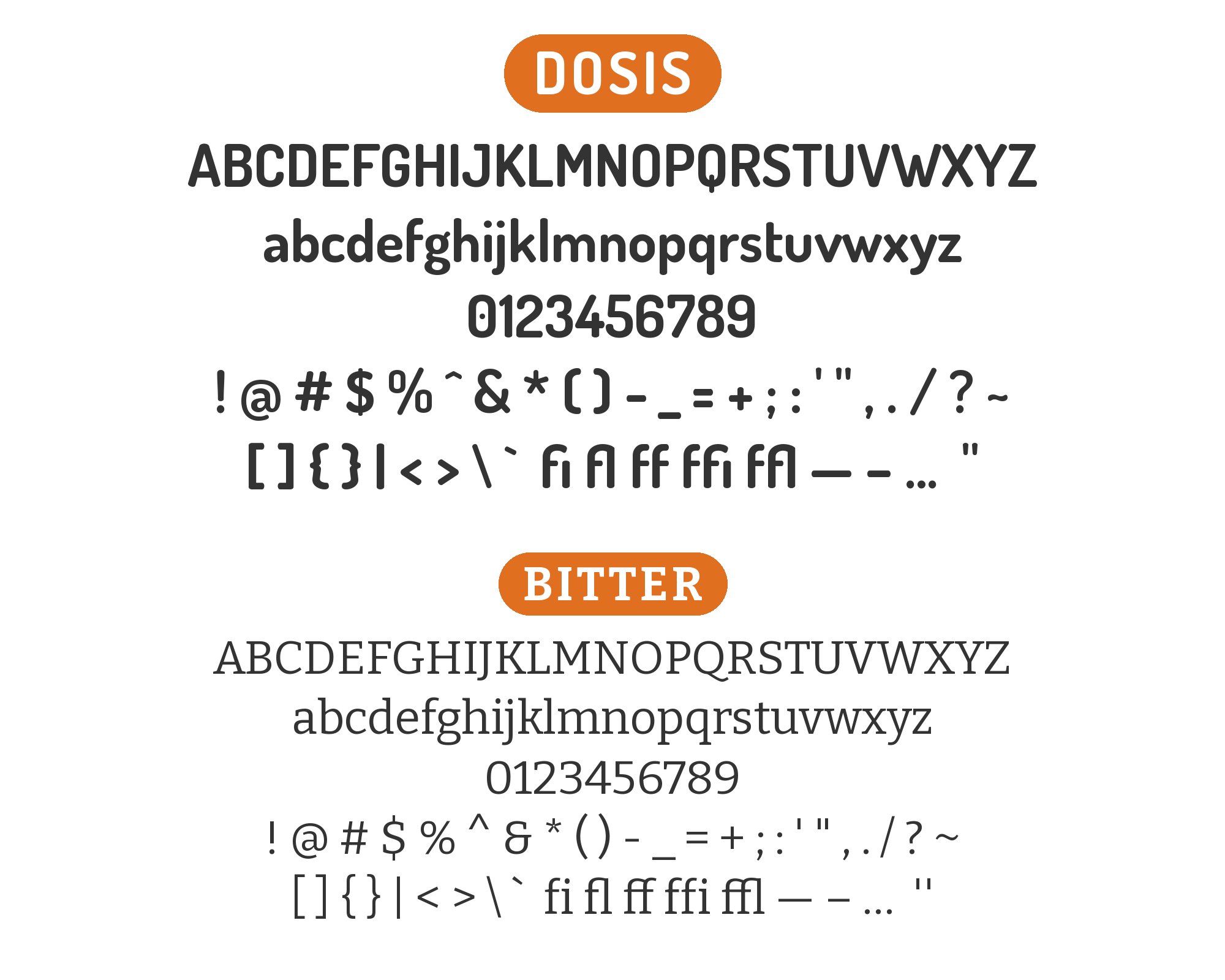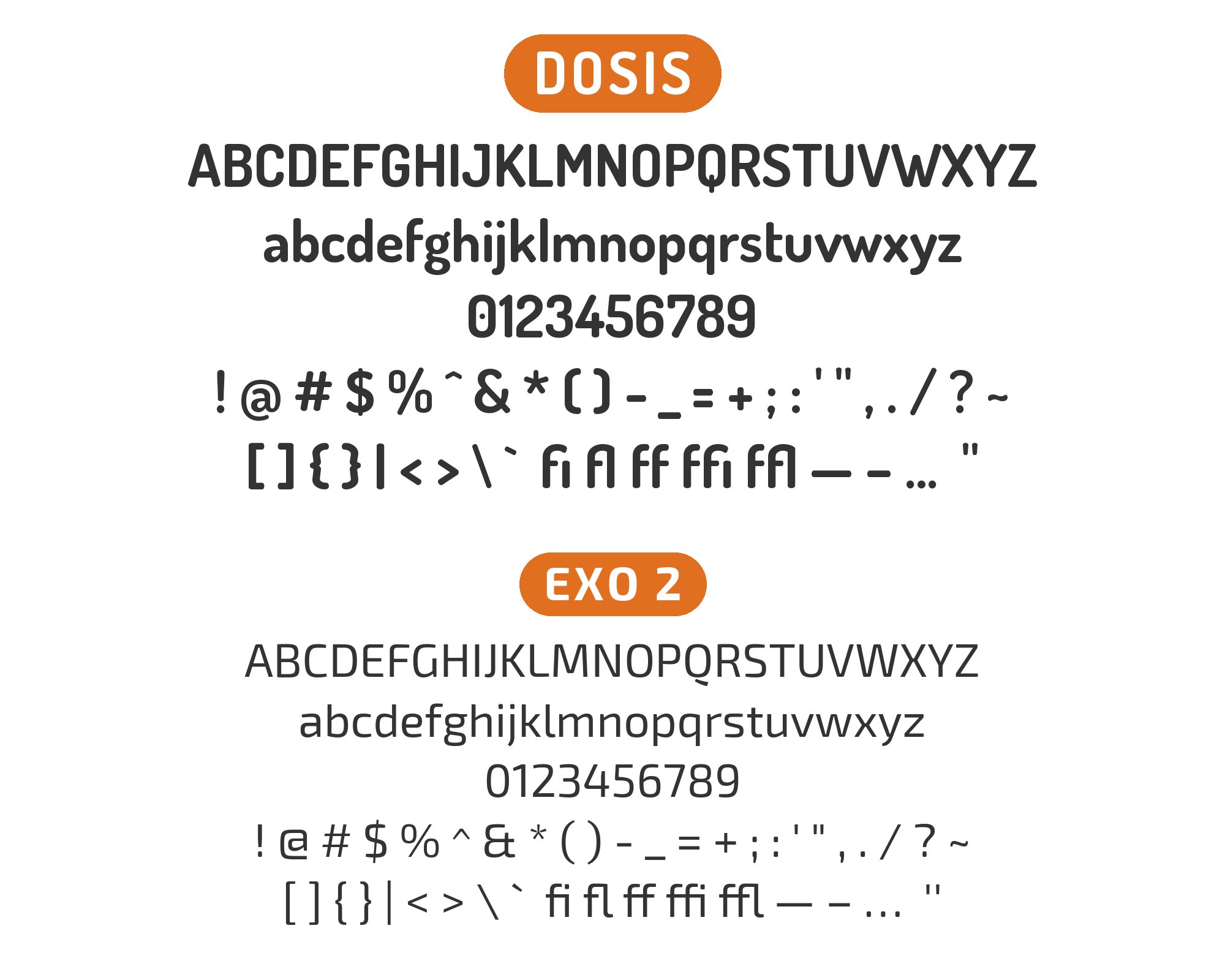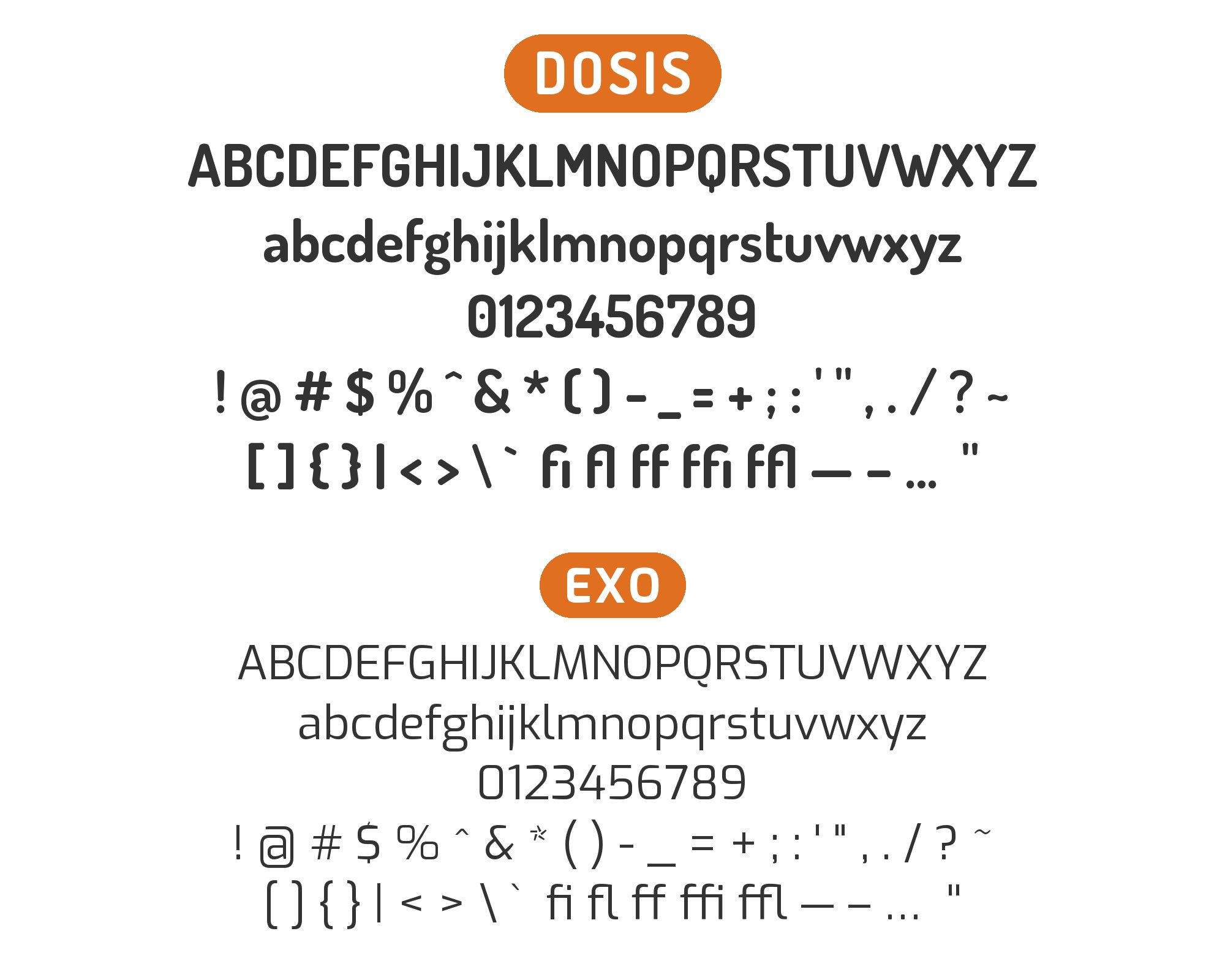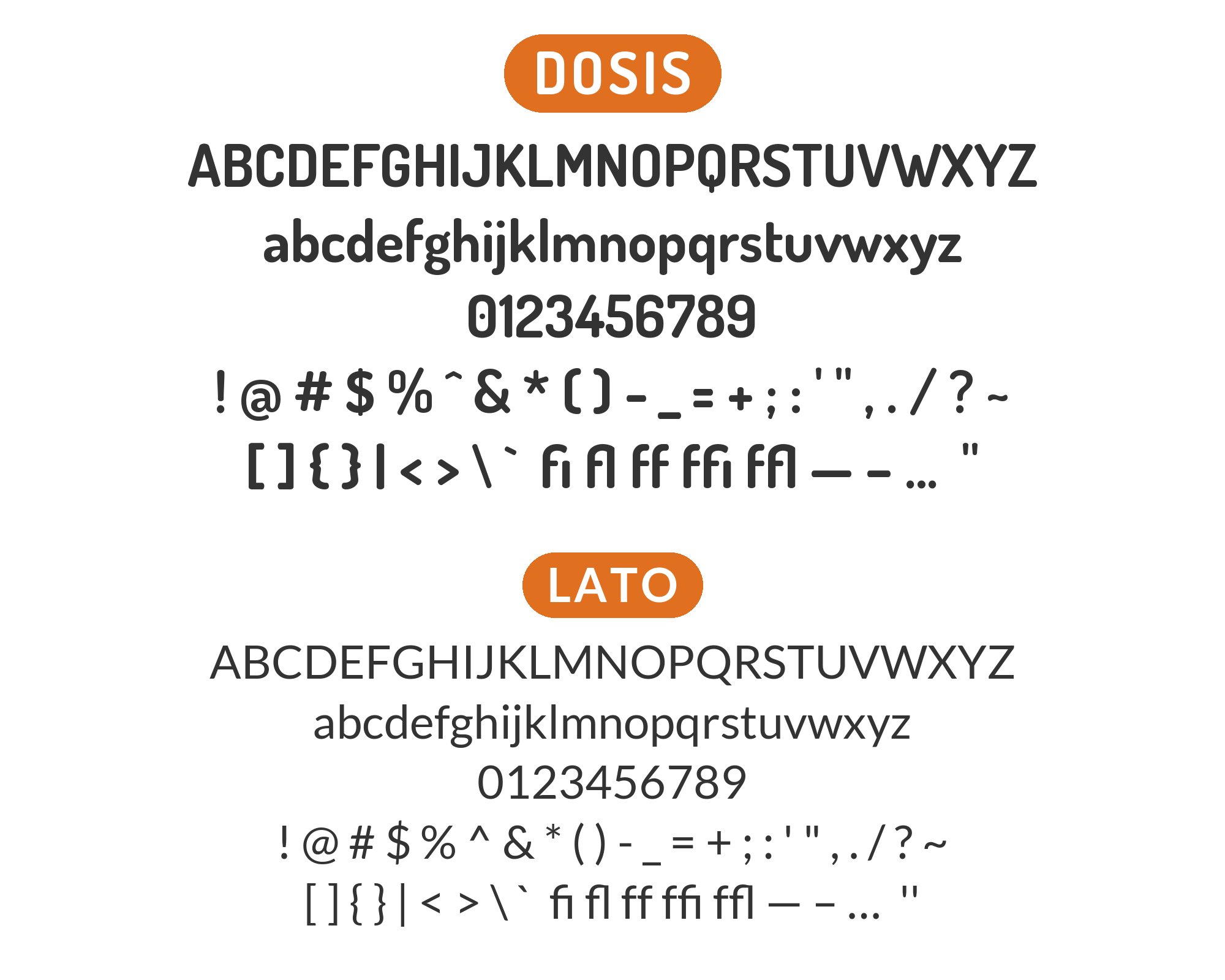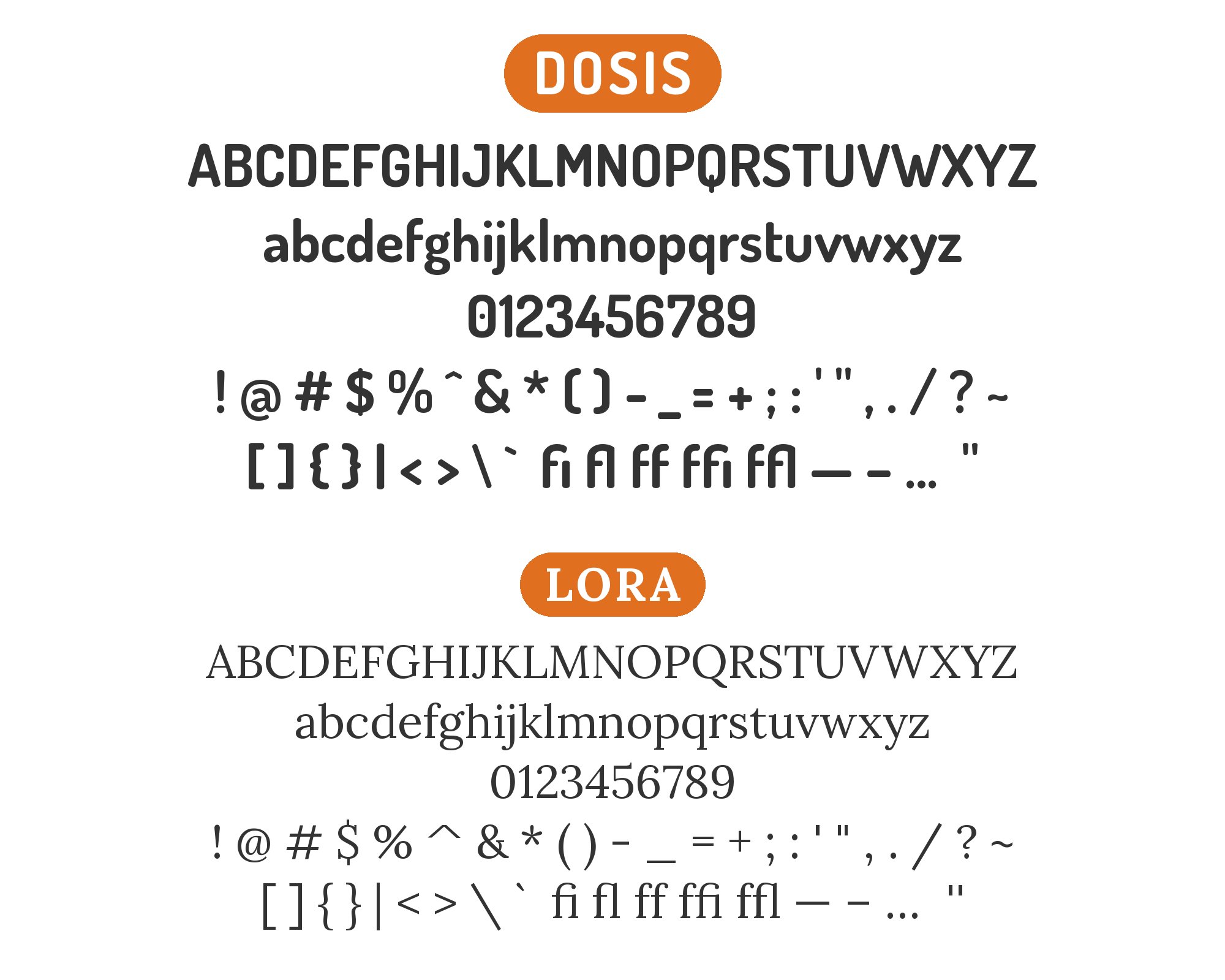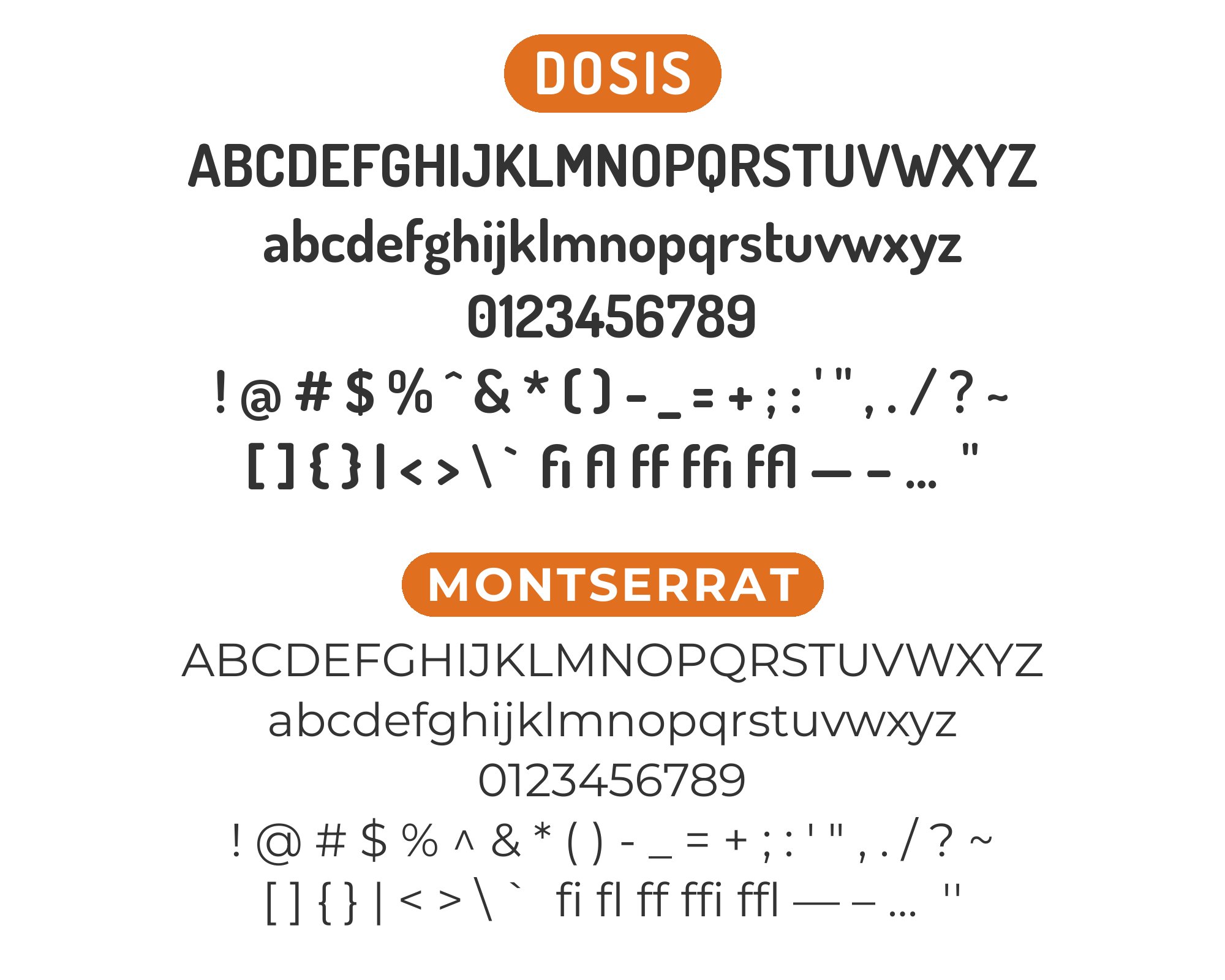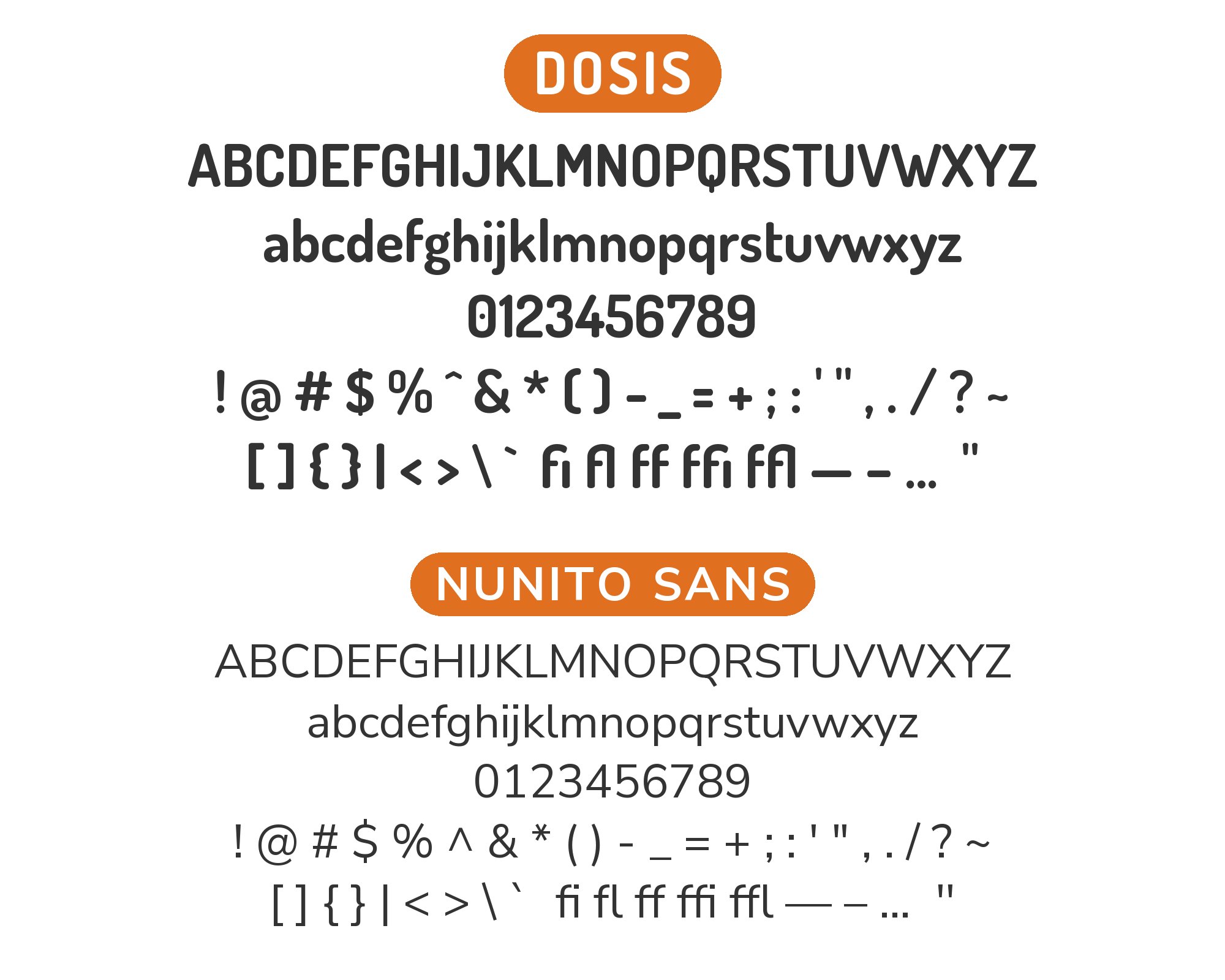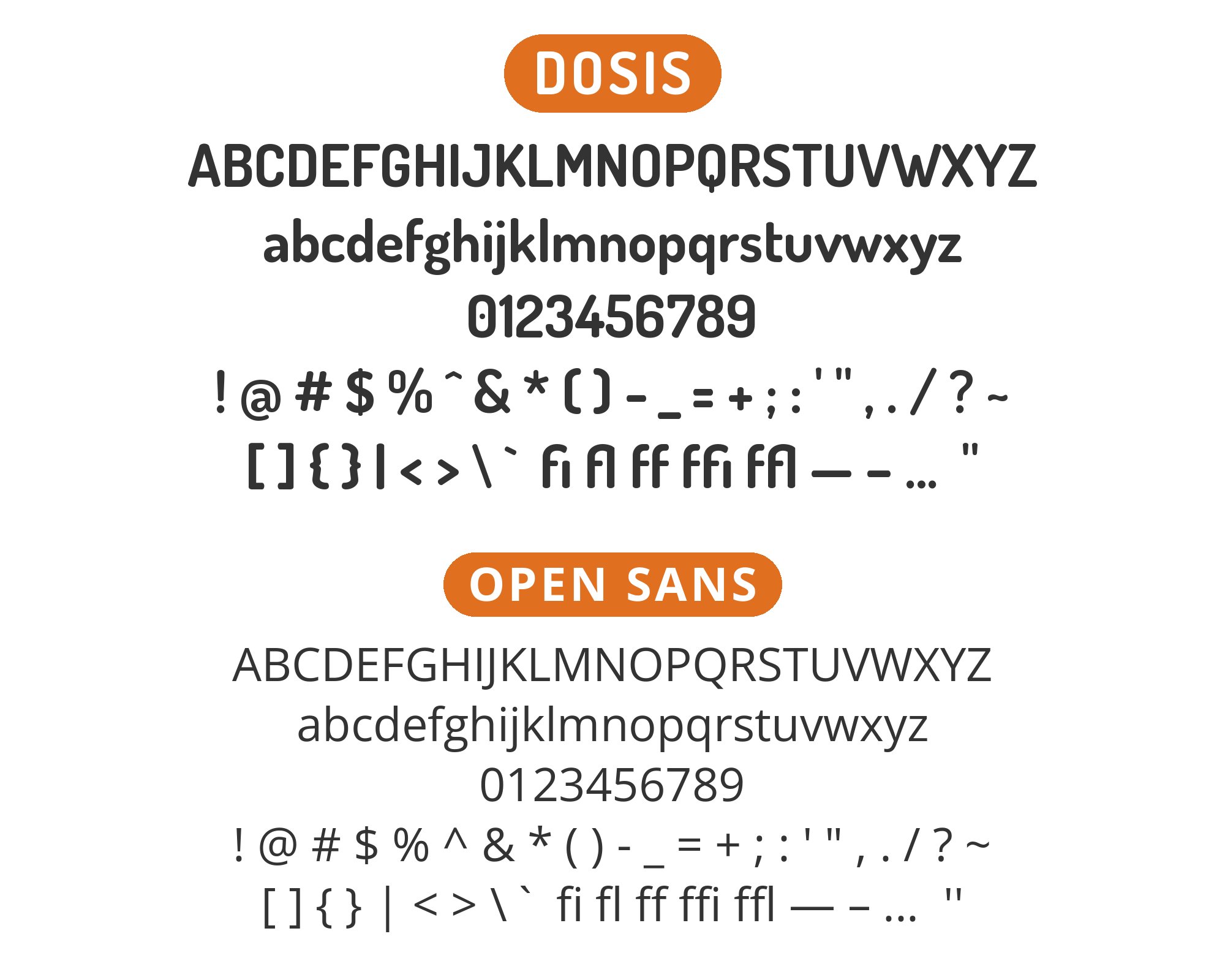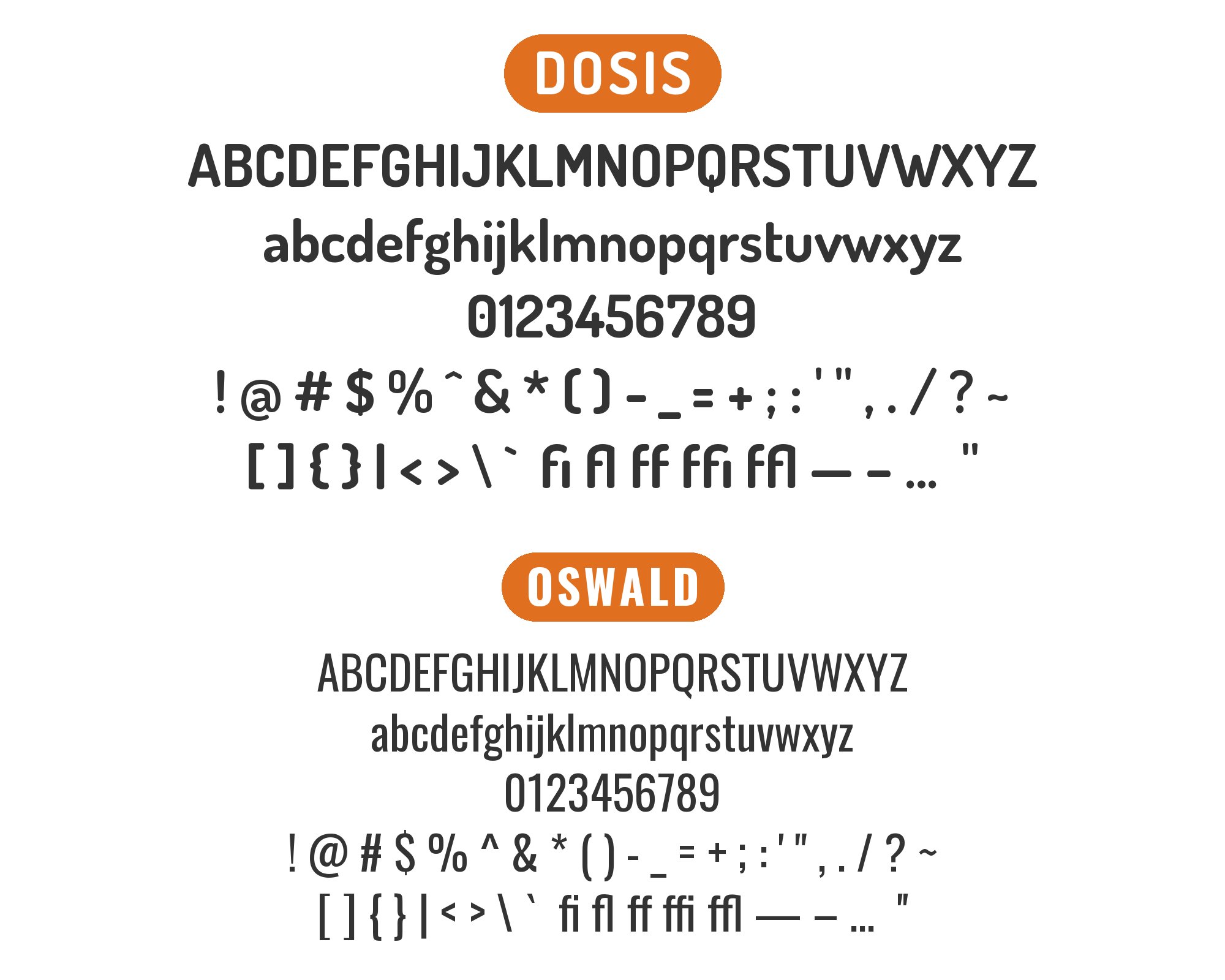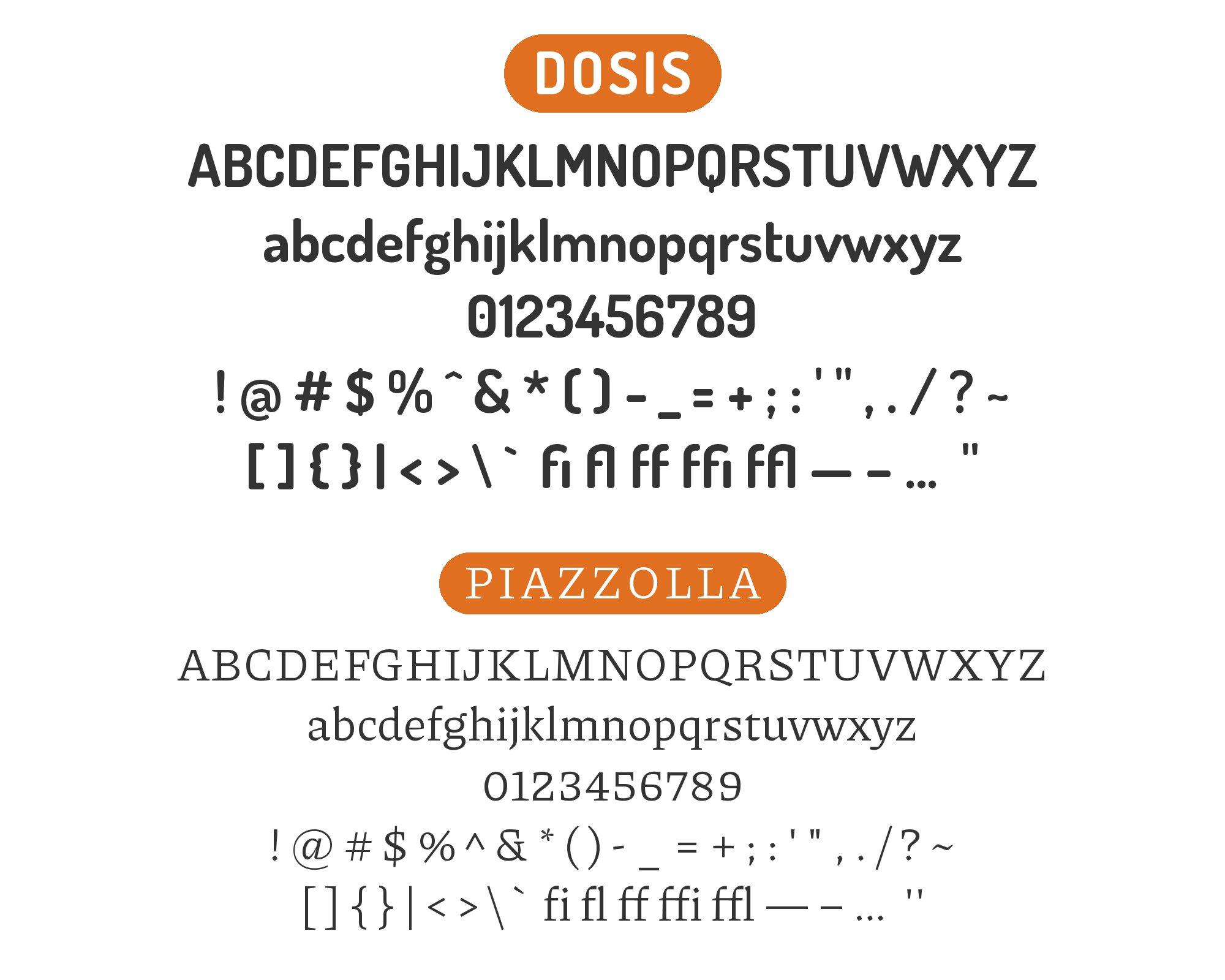
Dosis pairs great with Open Sans, Lato and Roboto. All 15 pairings are shown below in real rendered specimens, with the reason each one works.
What fonts go with Dosis? The rounded geometric sans is light in colour and built from very open, circular forms — friendly rather than authoritative, which means most of the fonts that pair well with it exist to supply the gravity Dosis was never designed to carry.
Dosis was drawn by Edgar Tolentino and expanded by Pablo Impallari and Igino Marini at Impallari Type (2011; remastered as a variable font in 2019), a seven-weight family from ExtraLight 200 to ExtraBold 800, built on a geometric skeleton of near-circular bowls with soft, rounded terminals rather than cut or squared ones. Its counters stay unusually open at every weight, which keeps the letterforms airy but also thins out its stroke colour on the page — it never gets visually heavy, even at its darkest weight. That lightness is deliberate and it is also a limit: the pairing guides we found treat Dosis as a headline face, not as body copy. Nobody sets long paragraphs in it.
Because of that, pairing Dosis is less about finding a contrasting shape and more about deciding how much of its personality the rest of the page should keep. One path stays inside the same geometric family — a companion sans built from a similar circle-and-line skeleton, so headline and body read as one coherent system. The other reaches for textural contrast — a serif or a plainer, more clinical sans that supplies the authority Dosis’s soft roundness gives up. Here are 15 fonts that take one path or the other, ordered from the strongest and most obtainable toward the more specialised.
1. Open Sans
Open Sans is about as road-tested a UI and body font as exists on the web — neutral, upright and legible even at small sizes, with none of Dosis’s roundness to compete with. That plainness is the whole point: it recedes exactly where a Dosis headline needs the contrast, letting the display type keep all the personality while Open Sans quietly carries every paragraph underneath it. Free on Google Fonts, it is a near-default choice for the titles-versus-reading-experience split that defines most Dosis layouts. Set it 16–18px for body copy.
Lato’s warm humanist curves sit at a visual weight close enough to Dosis’s rounded headlines that the page never feels like two unrelated systems stitched together. Its letterforms are still conventional enough, that long body copy reads normally rather than carrying the stylised quality Dosis would introduce at paragraph sizes. Its details are only semi-rounded rather than fully rounded off like Dosis’s, so a line of Lato reads at a more ordinary, even colour. Lato’s conventional skeleton holds paragraph sizes that Dosis’s open, light colour cannot, so the friendliness stays in the headline and the reading stays ordinary.
3. Roboto
Roboto’s mechanical, slightly squared letterforms sit about as far from Dosis’s rounded softness as a mainstream UI sans gets, and that distance is useful: the contrast keeps a Dosis headline reading as distinctly friendly rather than blending into whatever comes beneath it. Roboto itself carries dense body copy or interface text without asking for any attention of its own — it has been dashboard-tested for exactly that job. Its ubiquity in interface work is the practical argument: nothing in it surprises a reader, which is what you want beneath a headline that already has a voice.
4. Montserrat
Both faces are built from the same circle-and-line geometric skeleton, so the family resemblance between Montserrat and Dosis is real rather than superficial. What keeps a Montserrat headline from reading as a mere weight variant of Dosis is a difference in terminals — Montserrat’s are cut cleanly rather than rounded off — which is enough of a detail shift to separate the two even at similar sizes. That closeness makes the pairing useful for brand systems that want one coherent geometric identity running through headline and subhead alike.
Plan a Session5. Nunito Sans
Softer than Roboto but more restrained than the original rounded Nunito, Nunito Sans occupies a middle ground that keeps the whole page inside one soft-geometric family while still separating display from text. Under a Dosis headline it reads as calm, legible support rather than a second competing personality, which suits brands wanting an “all-rounded” visual system without every element fighting for the same warmth. It holds its shape at both UI and editorial body sizes, so a single soft-geometric system can run from interface labels through to long text.
6. Lora
Lora is a moderate-contrast serif built with brushed, calligraphic curves specifically for comfortable long-form screen reading, and those curves echo Dosis’s own roundedness closely enough that the shift from headline to body does not feel abrupt. What it adds beyond that resemblance is a literary, editorial register Dosis cannot supply on its own. The combination suits blogs and content sites that want a friendly, approachable headline over body copy that still reads as considered rather than casual, set at a comfortable size for extended scrolling.
7. Bitter
Engineered specifically for screen legibility, Bitter carries sturdy, low-contrast slab strokes that give long text a grounded, dependable feel — a useful counterweight to Dosis’s lighter, more playful display character. The squared-off weight does not clash with Dosis’s roundness so much as anchor it, keeping a page from feeling insubstantial once the reader moves past the headline. For blogs and editorial sites, that trade is the point: friendliness up top, real gravity in the reading experience. The slab strokes also hold their shape at small sizes, where Dosis’s thin, open forms start to disappear.
Test the pairing at the sizes you intend to publish. Dosis thins out fast below display size, so treat it strictly as a headline face and check the partner at real reading sizes — Oswald and Raleway in particular hold their character only when kept short and small-scale, not stretched into paragraphs.